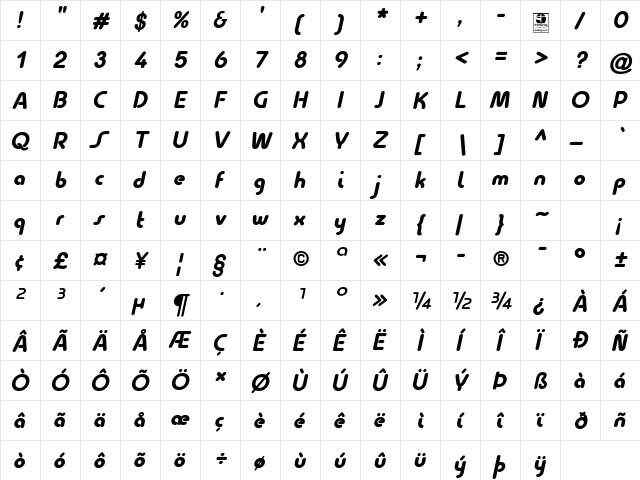
Quesat Black Italic Demo Regular
Design Context for Quesat Black Italic Demo Typeface
Quesat Black Italic Demo is a composed and adaptable typeface that performs quietly and consistently across a wide range of design contexts. The dynamic lean of this cut emphasises speed and emphasis in any layout.
Pro Tip: Try Quesat Black Italic Demo for annotation and caption copy alongside an upright companion — the contrast in angle creates a dynamic but ordered typographic system.